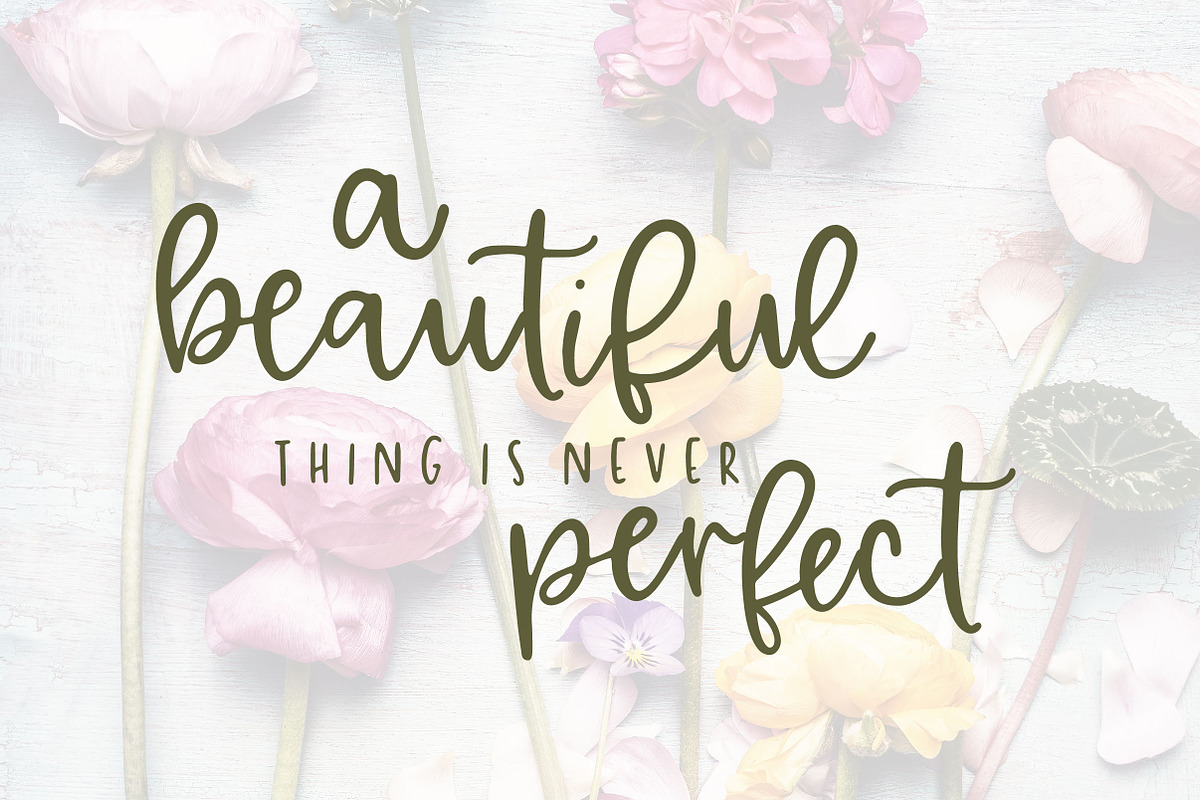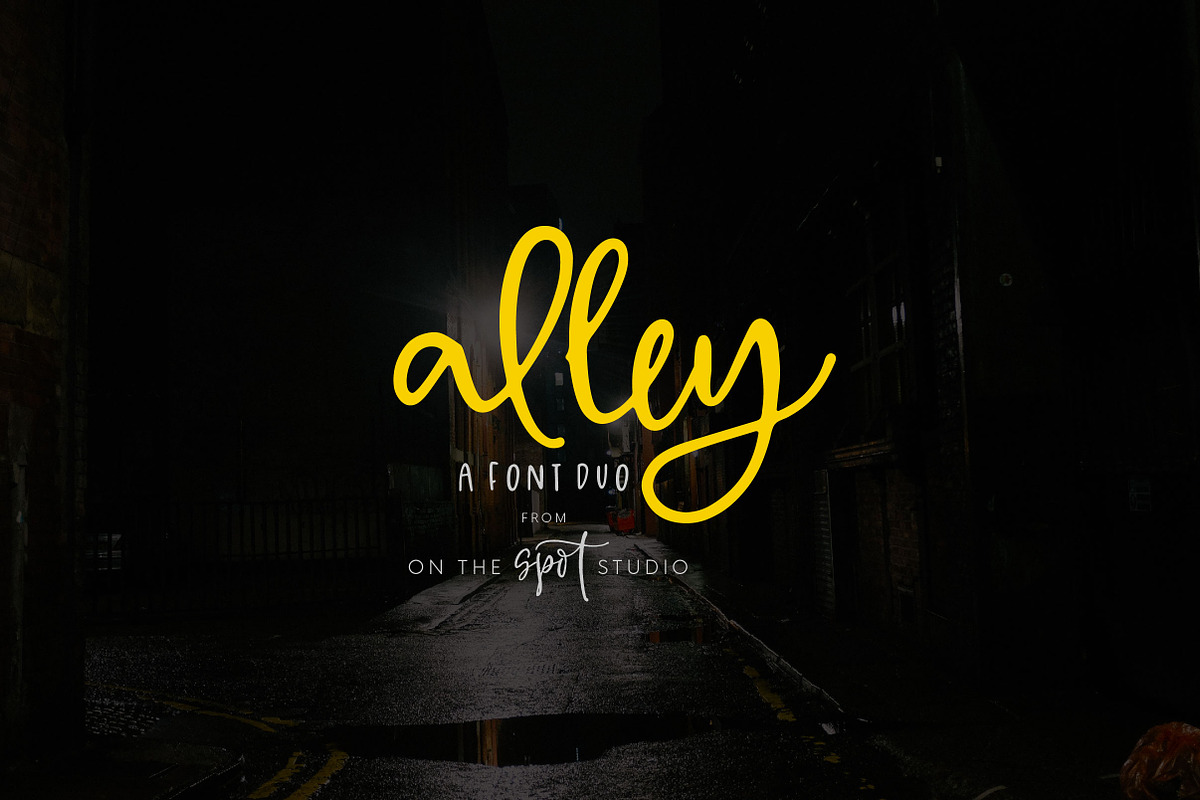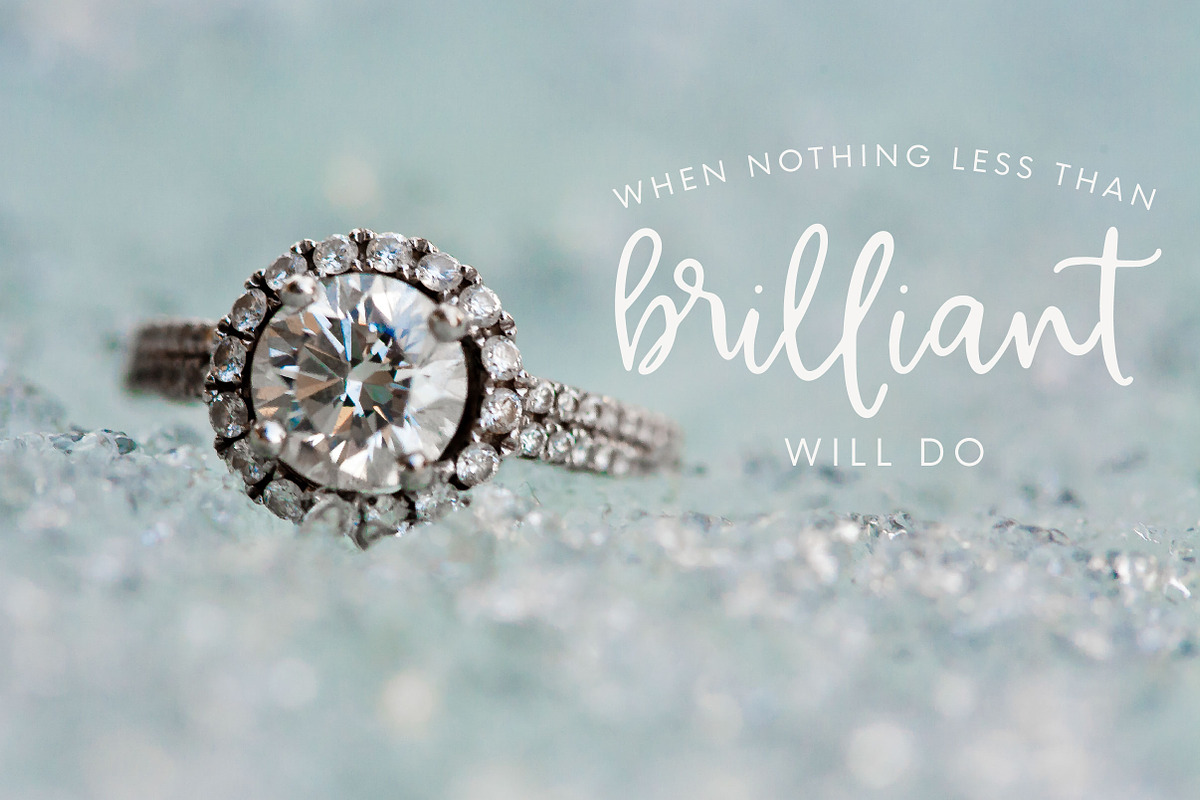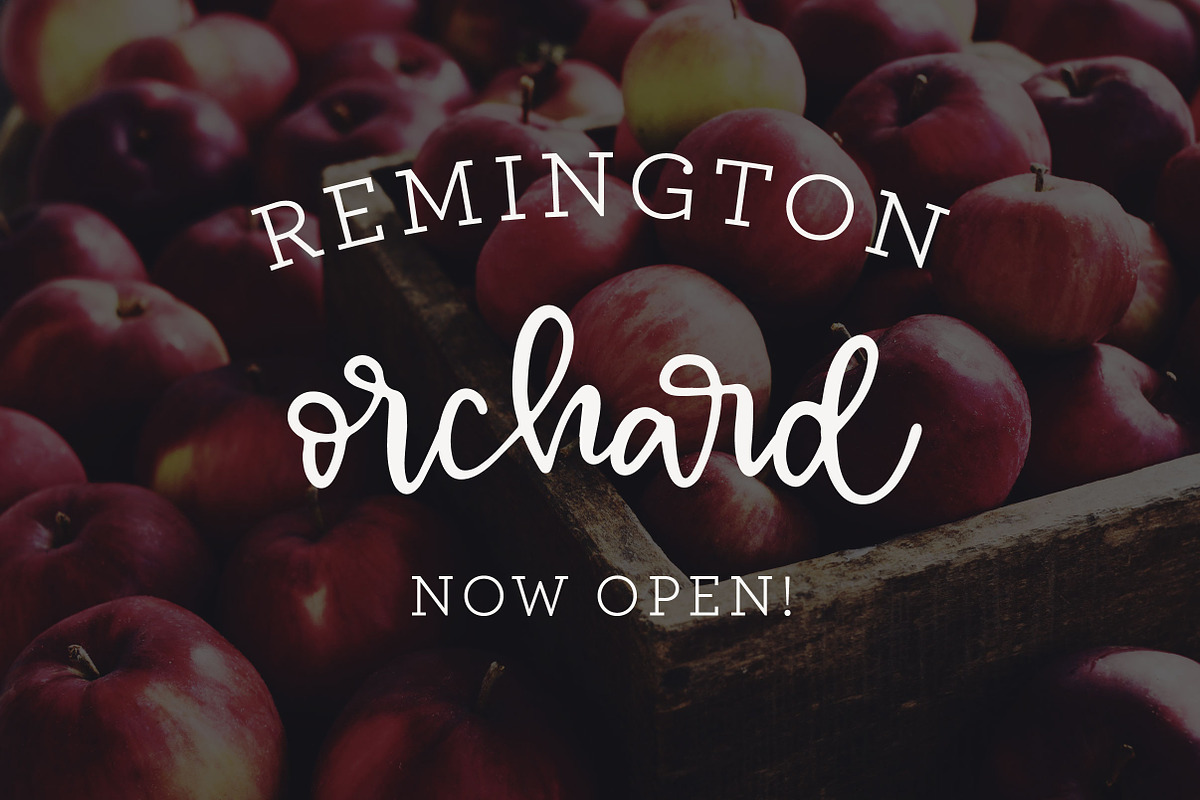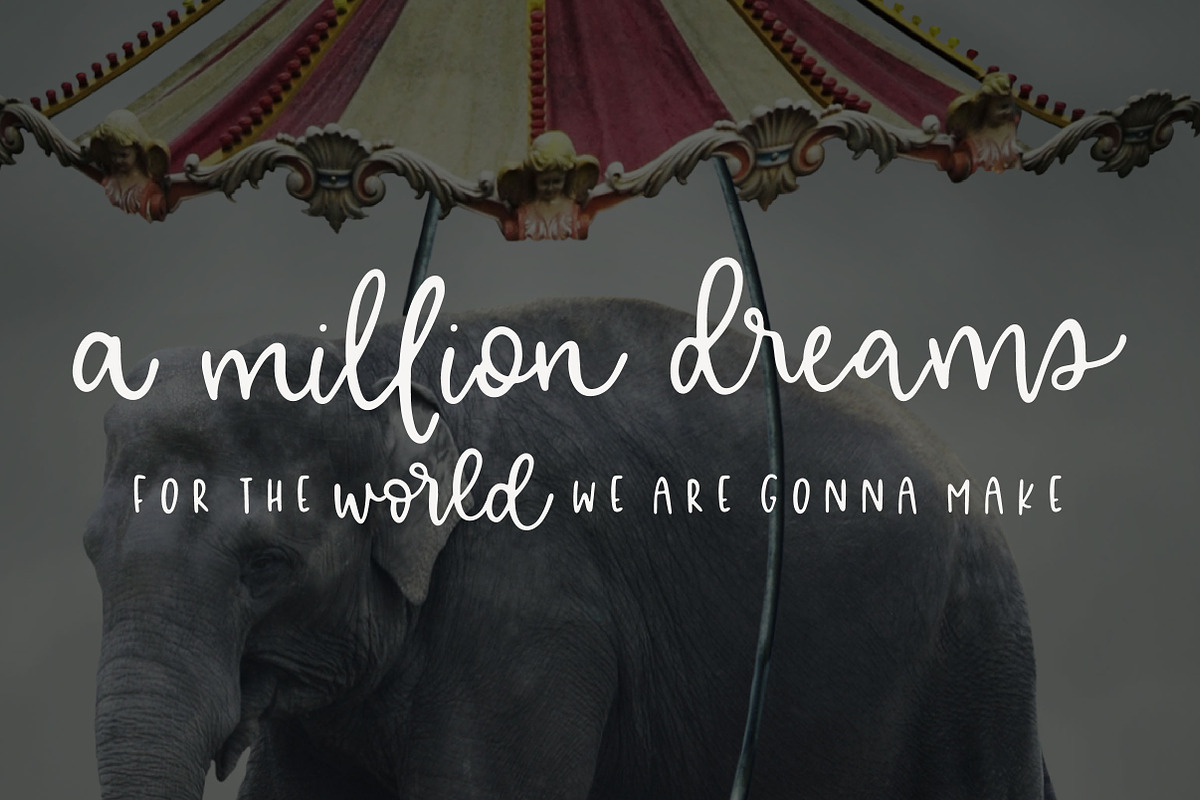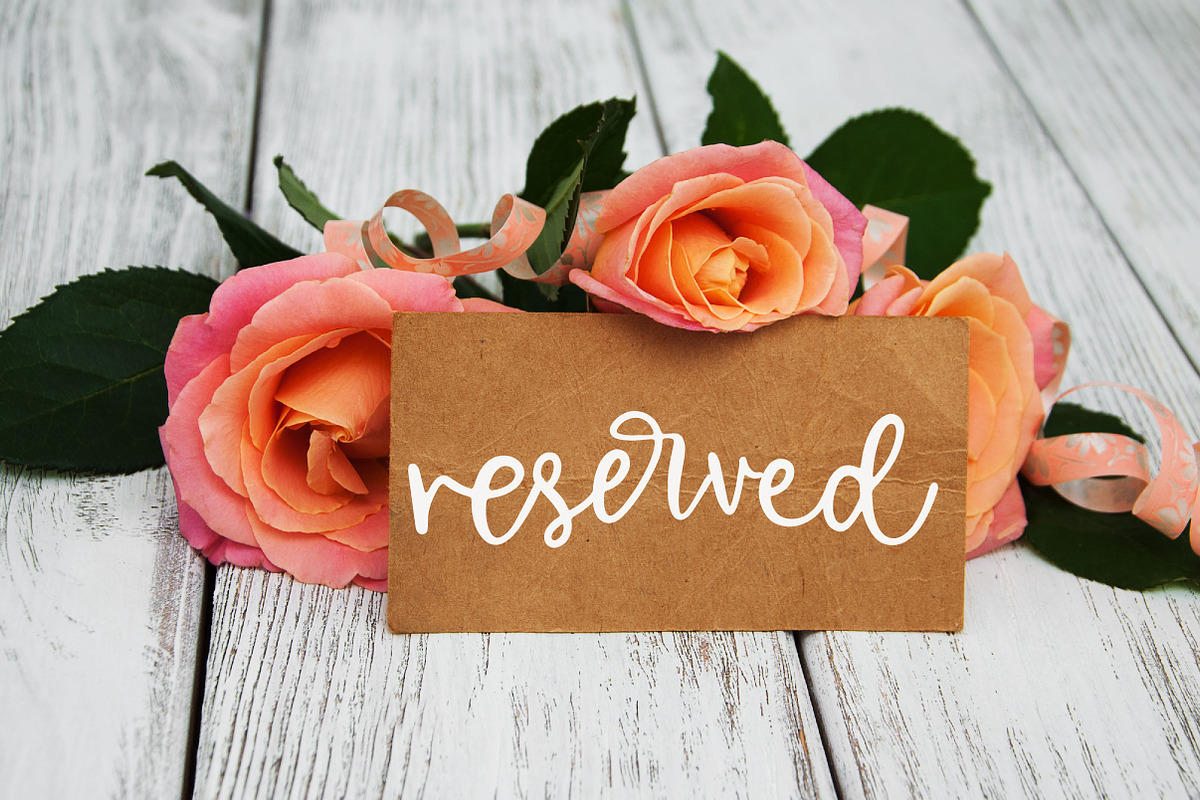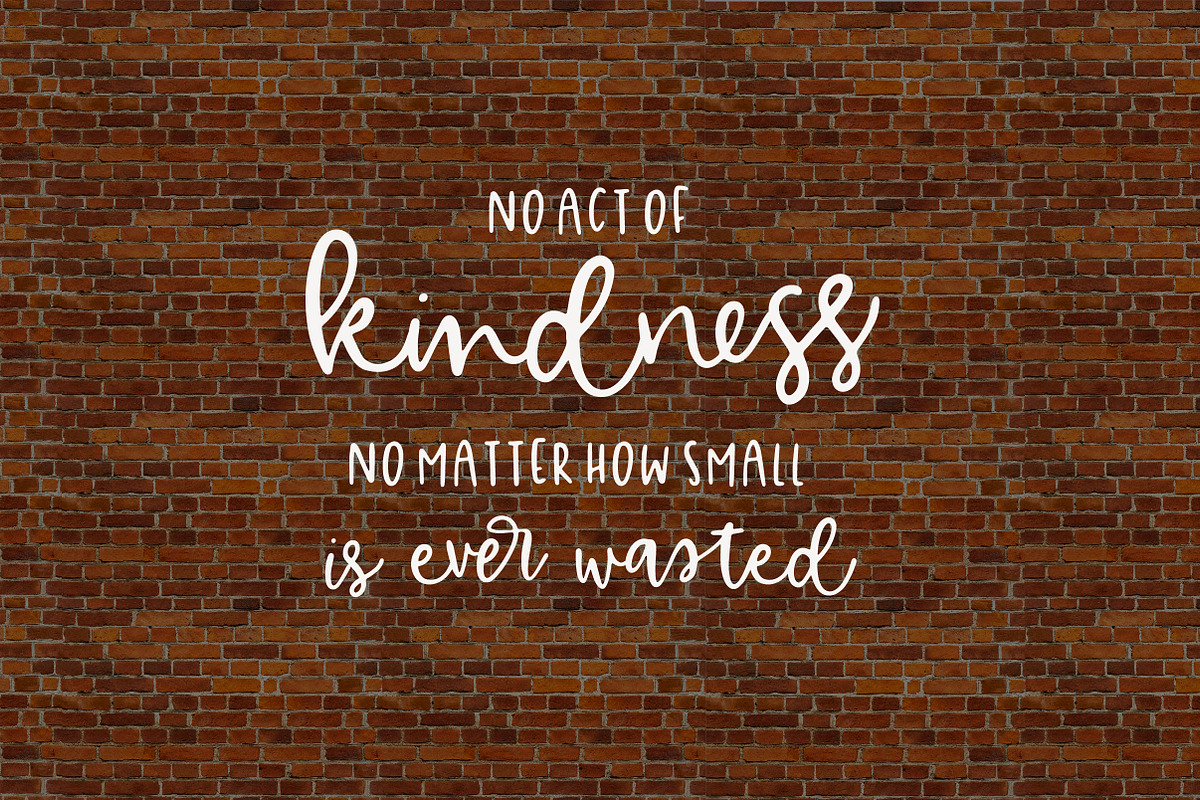
Alley - A Font Duo
Introducing the newest font duo from OTSS : Alley
Alley is a perfectly paired font duo, hand lettered with individual letters as well as 170 ligatures!
Why Alley - A Font Duo is worth a look
Alley - A Font Duo by OnTheSpotStudio fits naturally into Branding, posters, packaging, typography.